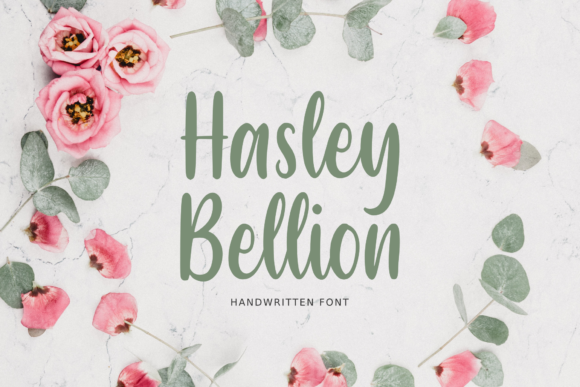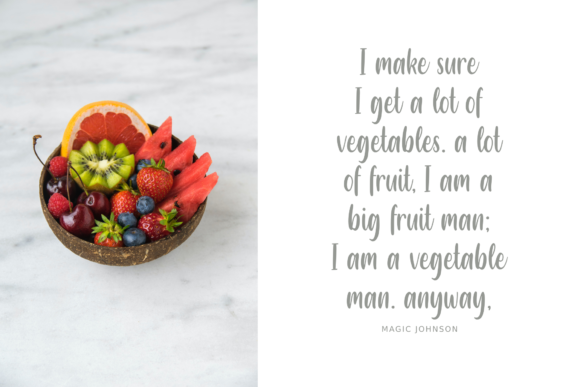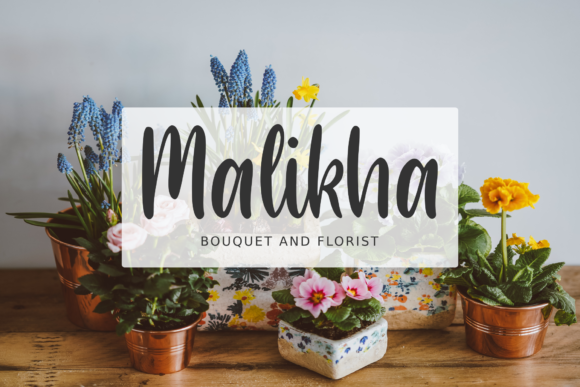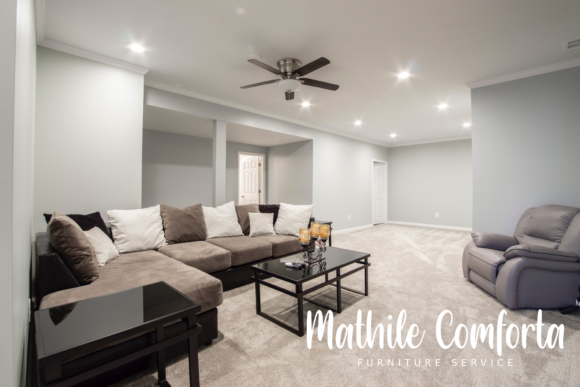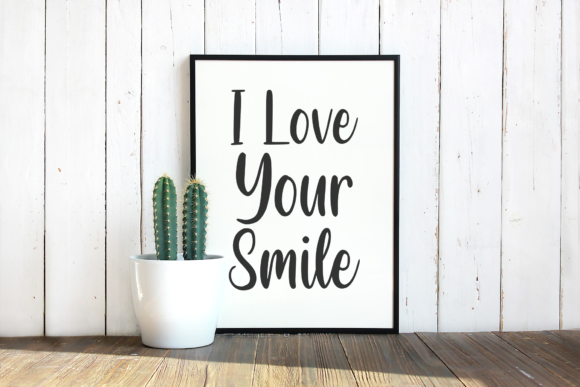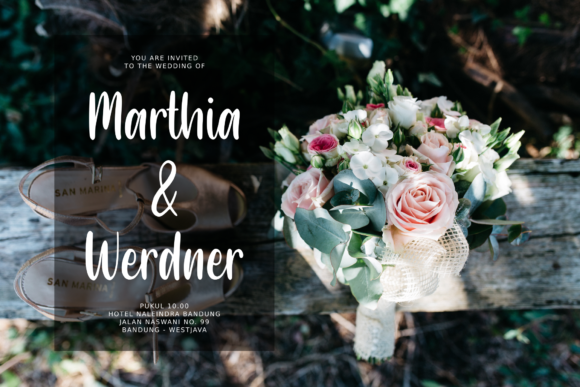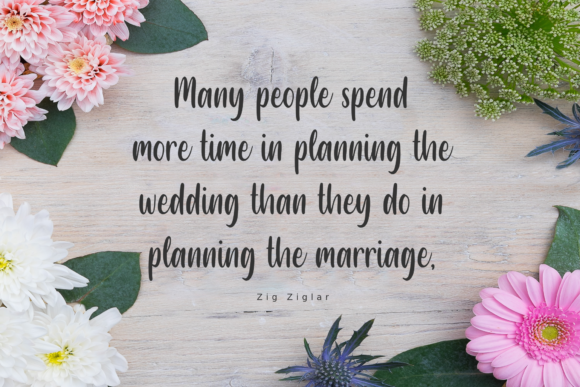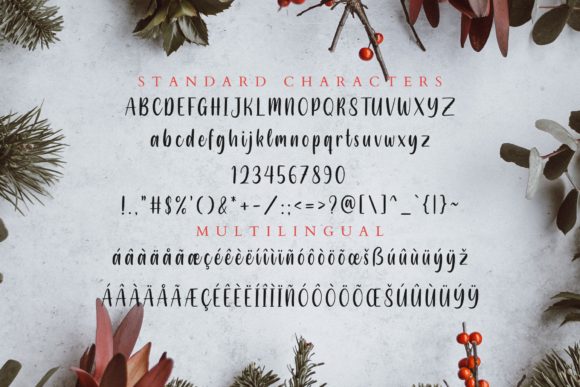
Hasley Bellion Font
About Hasley Bellion Font
Hasley Bellion feels equally charming and elegant. This stunning handwritten font is a stylish homage to classic calligraphy. It features a varying baseline, smooth lines, gorgeous glyphs and stunning alternates.